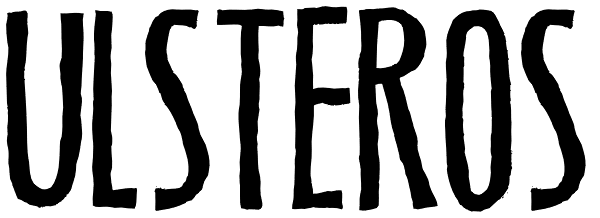
Ulsteros
Ulsteros was inspired by old horror movie posters. It comes in OpenType with more than 250 different ligatures! You will need to use OpenType supporting applications to use the autoligatures.
Ulsteros Font